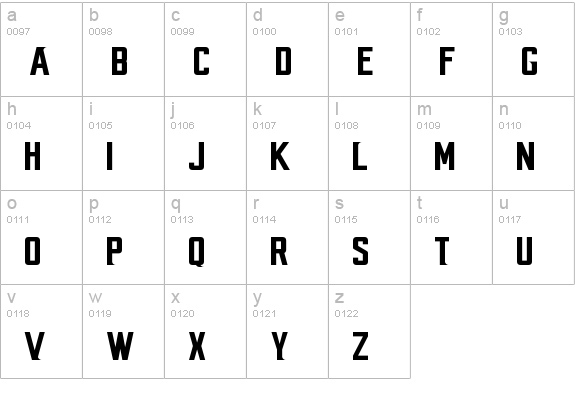
The NFL Minnesota Vikings font is a bold and dynamic typeface that perfectly captures the spirit and energy of the renowned football team. With its strong and distinctive letterforms, this font exudes power and resilience, just like the Vikings themselves. Whether you're creating posters, digital graphics, or merchandise, this font will elevate your design to new heights. Designed with meticulous attention to detail, the NFL Minnesota Vikings font showcases the team's iconic purple and gold color scheme, infusing your projects with a sense of loyalty and pride. The letters are expertly crafted to convey a sense of motion and strength, making them ideal for headlines, logos, and branding materials. What's even better is that the NFL Minnesota Vikings font is available for free download at FontsMarket.com. This means that you can easily access and use this exceptional typeface without any cost or restrictions. Whether you're a die-hard Vikings fan or simply appreciate the aesthetic appeal of this font, it's a fantastic resource to have at your disposal. With the NFL Minnesota Vikings font, you have the freedom to unleash your creativity and bring your design visions to life. Its versatility allows you to seamlessly incorporate it into various projects, from sports-related designs to promotional materials and everything in between. So, go ahead and download this font from FontsMarket.com, and let the Viking spirit inspire your designs like never before.